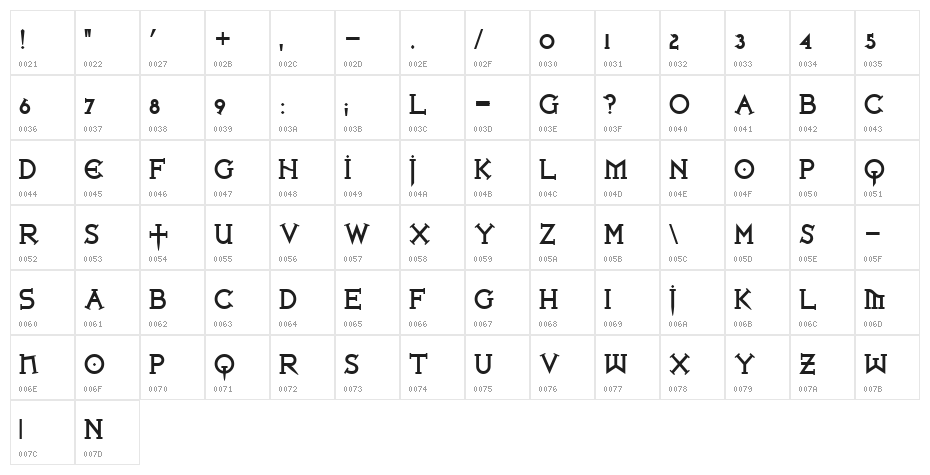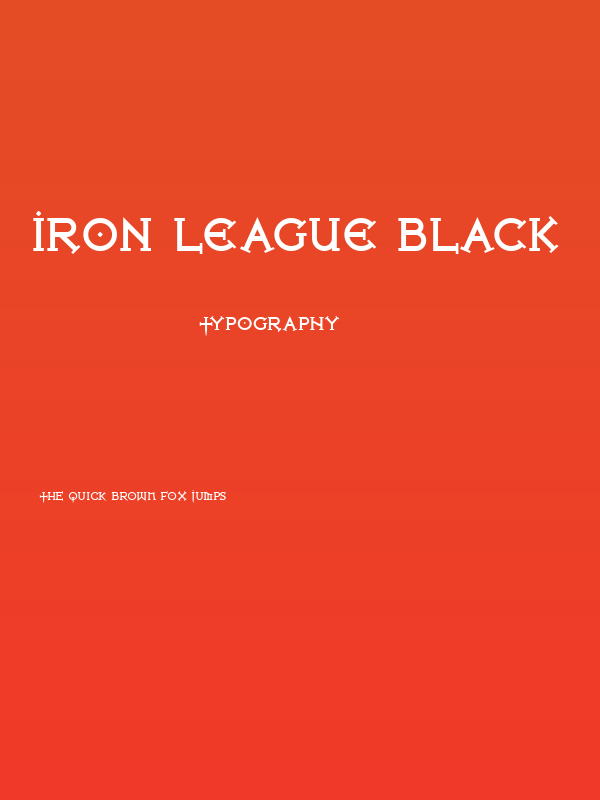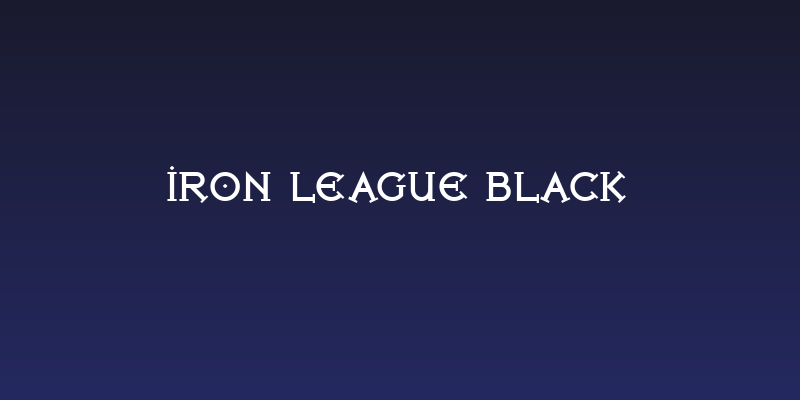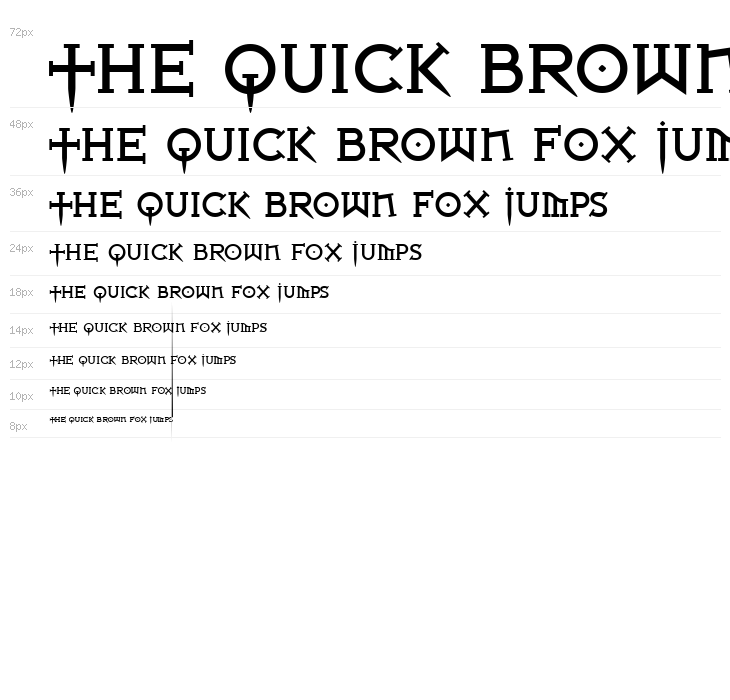
Iron League Black Font
Iron League Black Description
This font features a bold and striking design with sharp, angular serifs and a strong geometric structure. The characters are crafted with a unique blend of modern and vintage elements, giving it a distinct and memorable appearance. The uppercase letters are particularly prominent, with exaggerated serifs that add a sense of drama and impact. The numerals and special characters maintain the same boldness and stylistic consistency, making it suitable for attention-grabbing headlines and logos. The overall design is both decorative and functional, offering versatility for various creative projects.
| Proposed Projects | Perfect for branding, posters, album covers, and any project needing a bold, impactful typeface. |